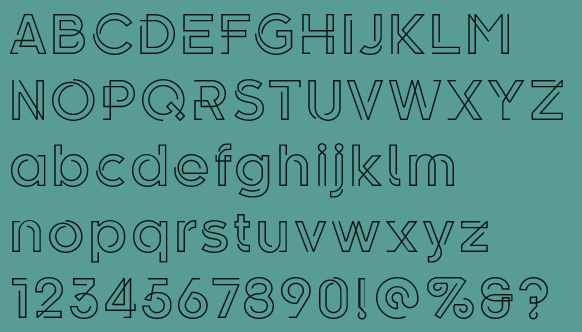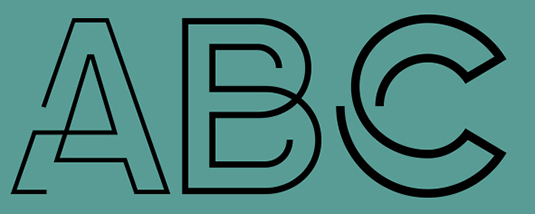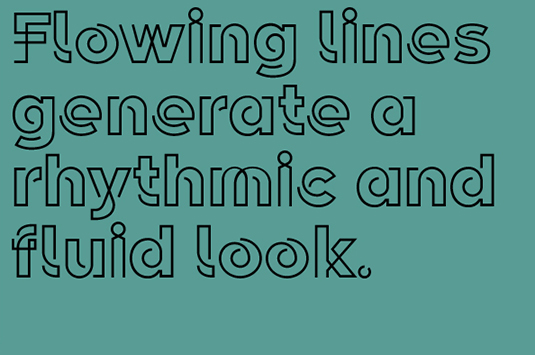
Font of the day: Kelso
Kelso by Talbot Type
Kelso is a highly original, outline display font. Each character is represented by a single continuous line to create a fluid and rhythmic look. This technique seems somehow to bring out the individual characteristics of each letter, resulting in a harmonious typeface that's both easy to read and easy on the eye.